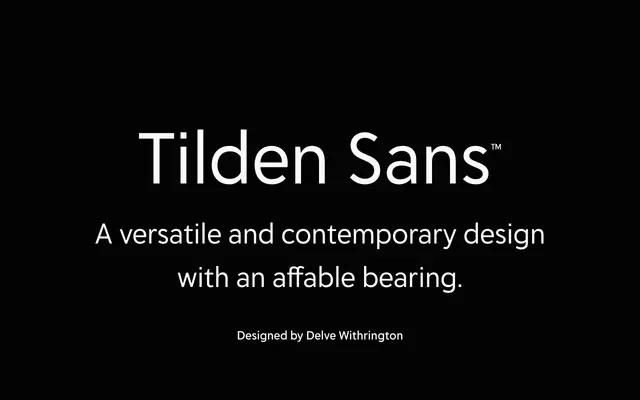
Tilden Sans
Delve Fonts · Delve Withrington
A square-ish, low-contrast geometric sans by Delve Withrington with incised terminals and broad multilingual coverage across seven weights.
Designed with a generous x-height and low stroke contrast, Tilden Sans achieves a friendly, no-nonsense character through incised terminals on its curvilinear strokes, distinguishing it from plainer geometric sans designs without complicating legibility. The family spans seven weights from Light to Black, with the middle weights suited to text sizes and the extremes pulling well at display scale. A variable font is available, and the glyph set of over 900 characters covers more than 200 languages.
Tilden Sans is a low-contrast, square-ish sans serif with a generous x-height and incised terminals on curvilinear strokes, placing it in the geometric sans tradition with humanist warmth.